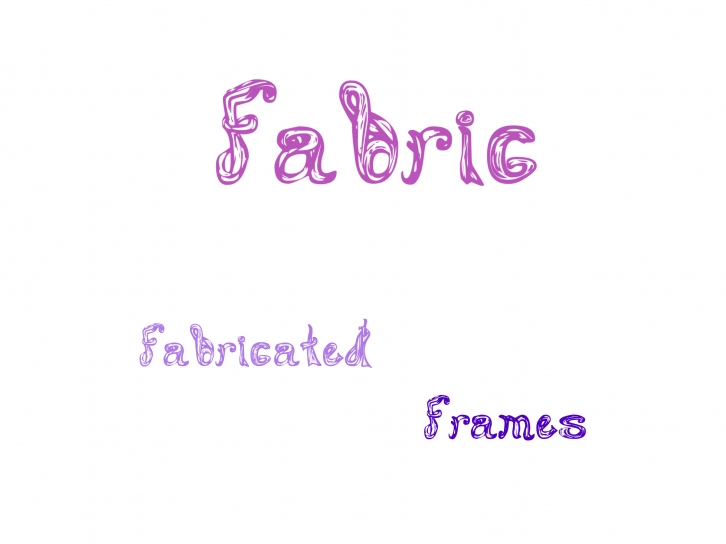
Fabric is a fun and friendly display font. Whether you use it for cartoon-related designs, children’s games, or just any creation that requires a lovely touch, this font will be an amazing choice